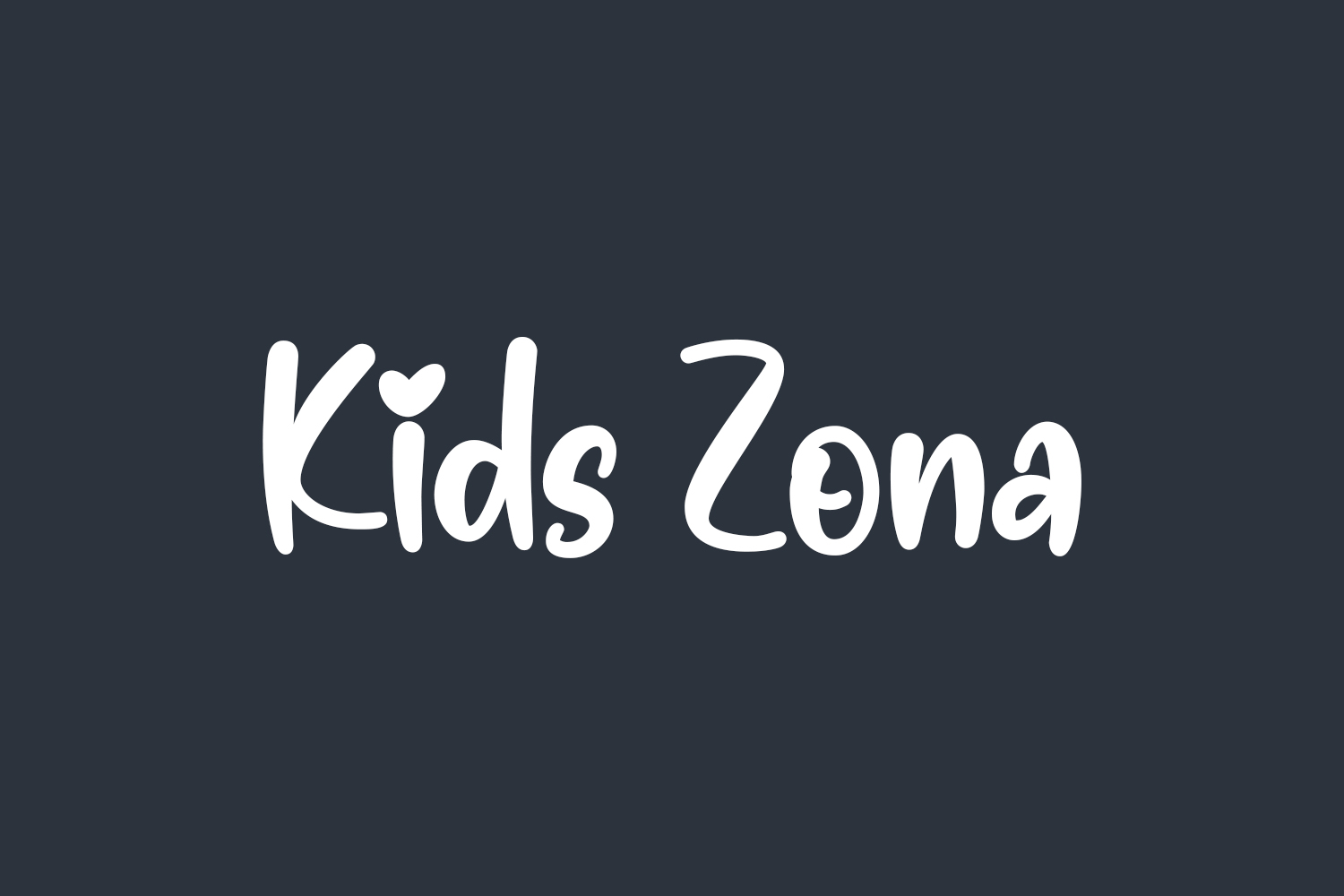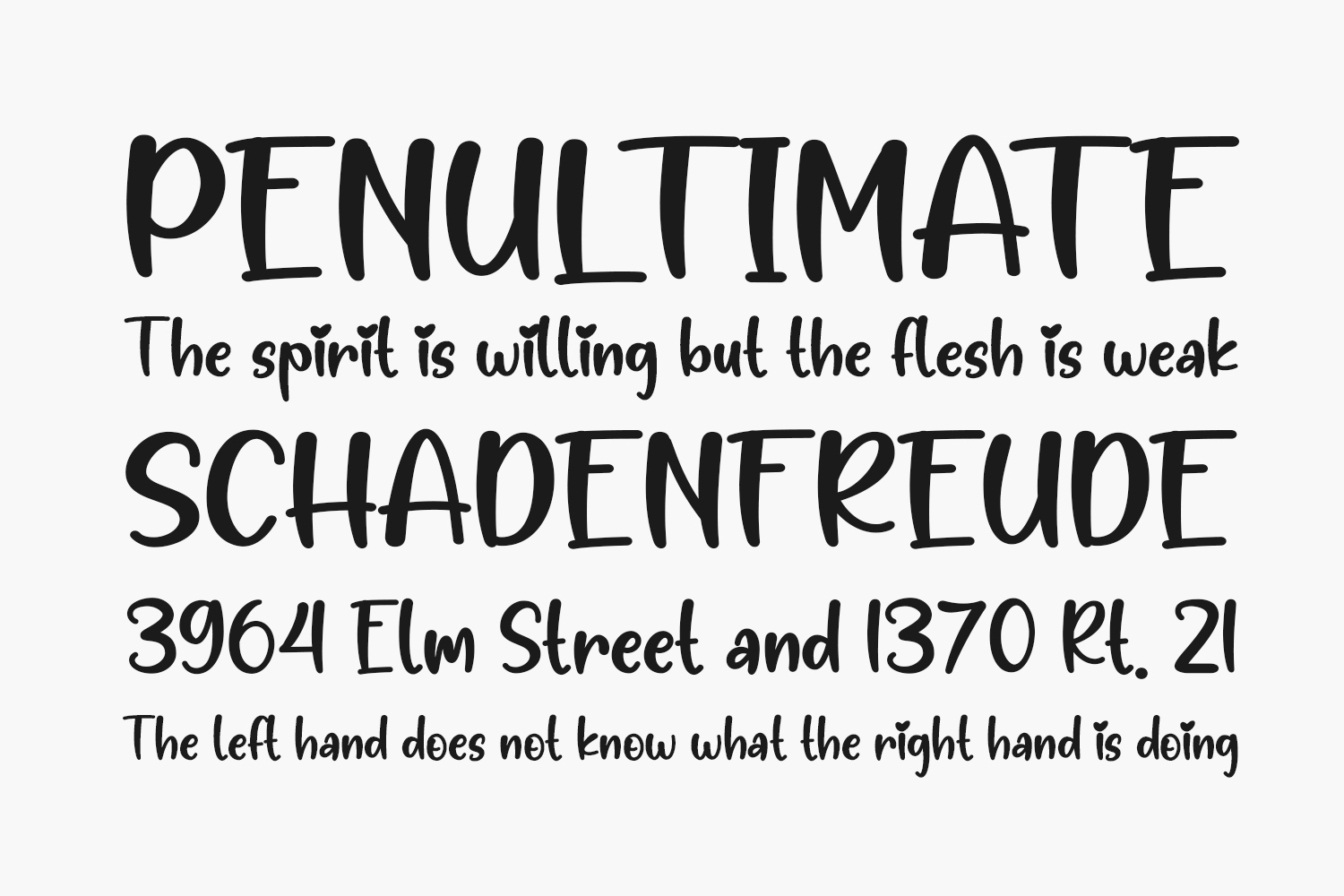
Introducing Kids Zona Free Font, a charming handwritten font with a subtle and uncomplicated style, tailor-made for crafting captivating chalkboard quotes and educational materials! Imbued with an authentic appearance, this font effortlessly infuses a personal and lifelike touch into your design projects. Elevate your creations with the genuine charm of Kids Zona. Kids Zona Free Font was designed by Scratchones and is free for personal use only. Please purchase the full version for commercial use.